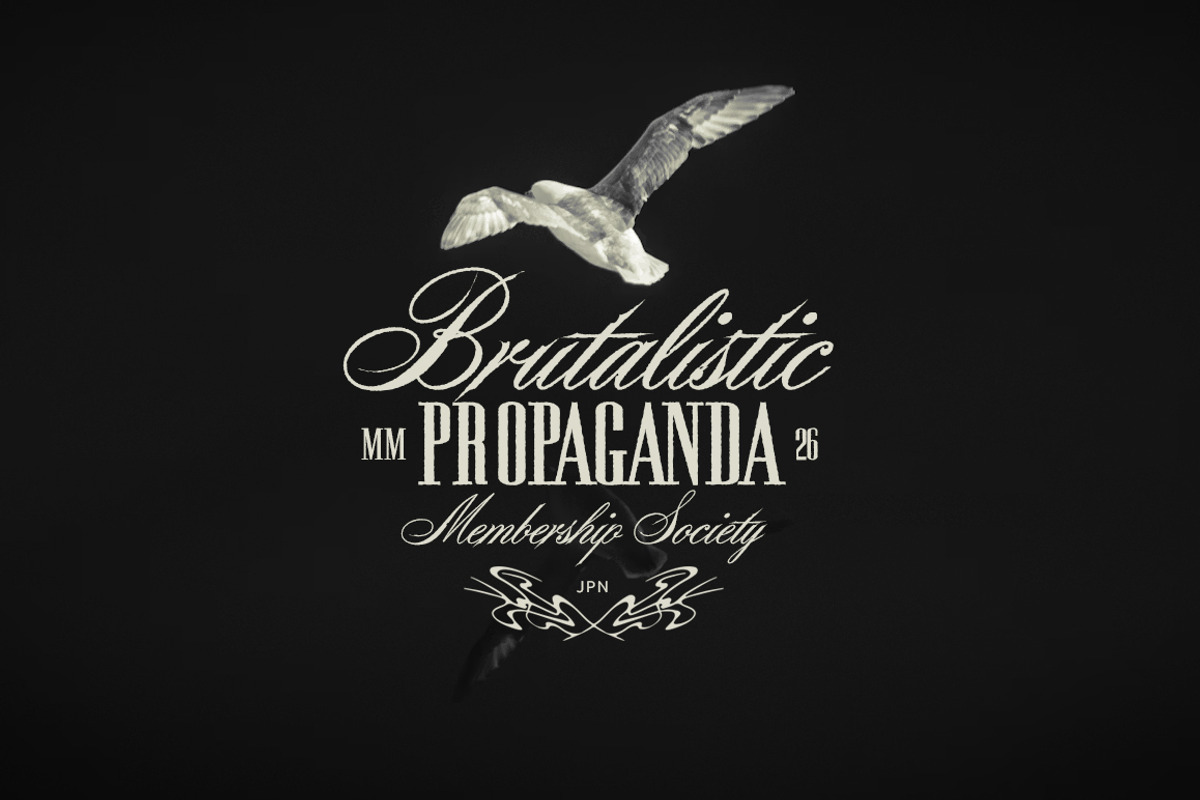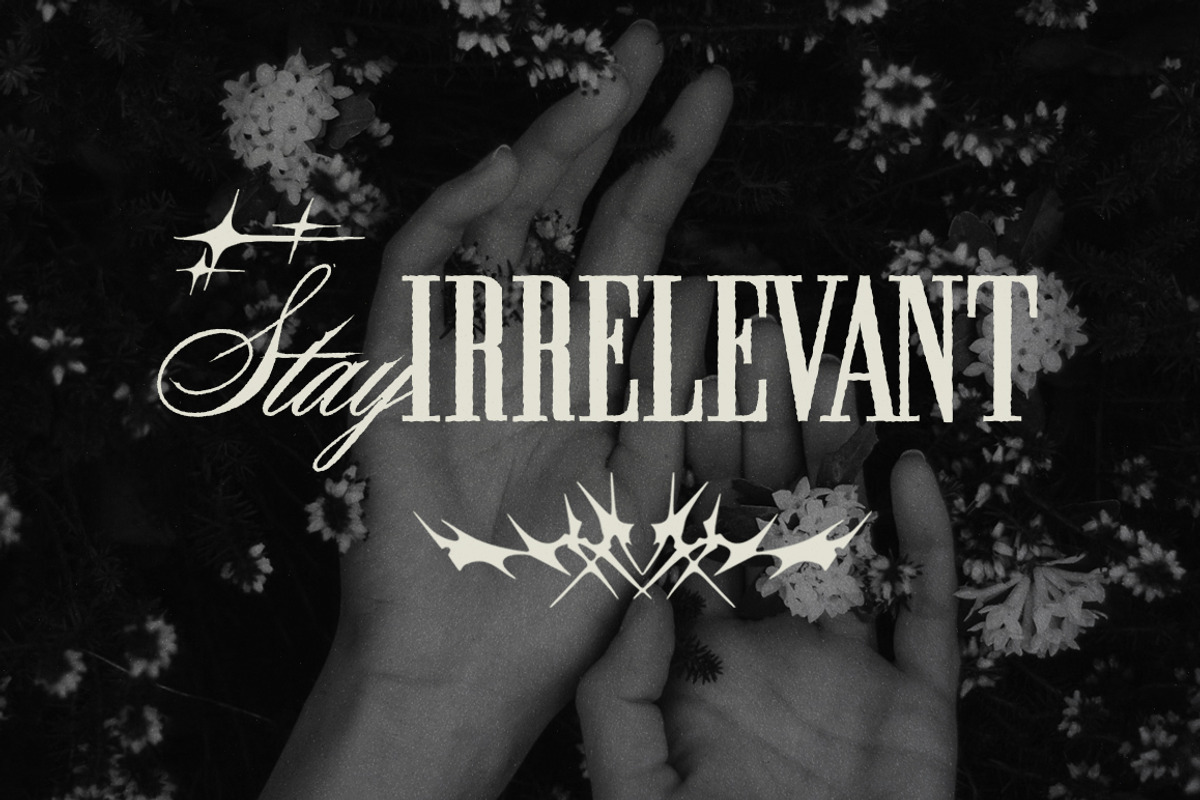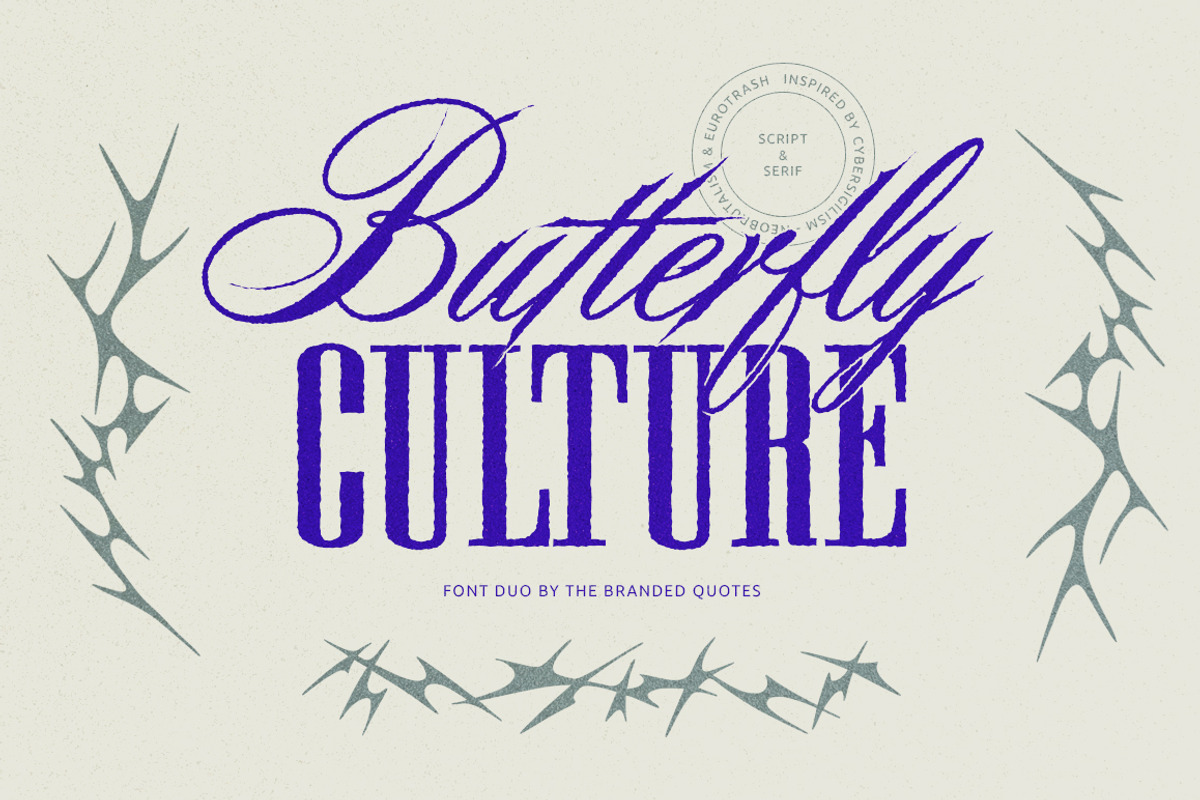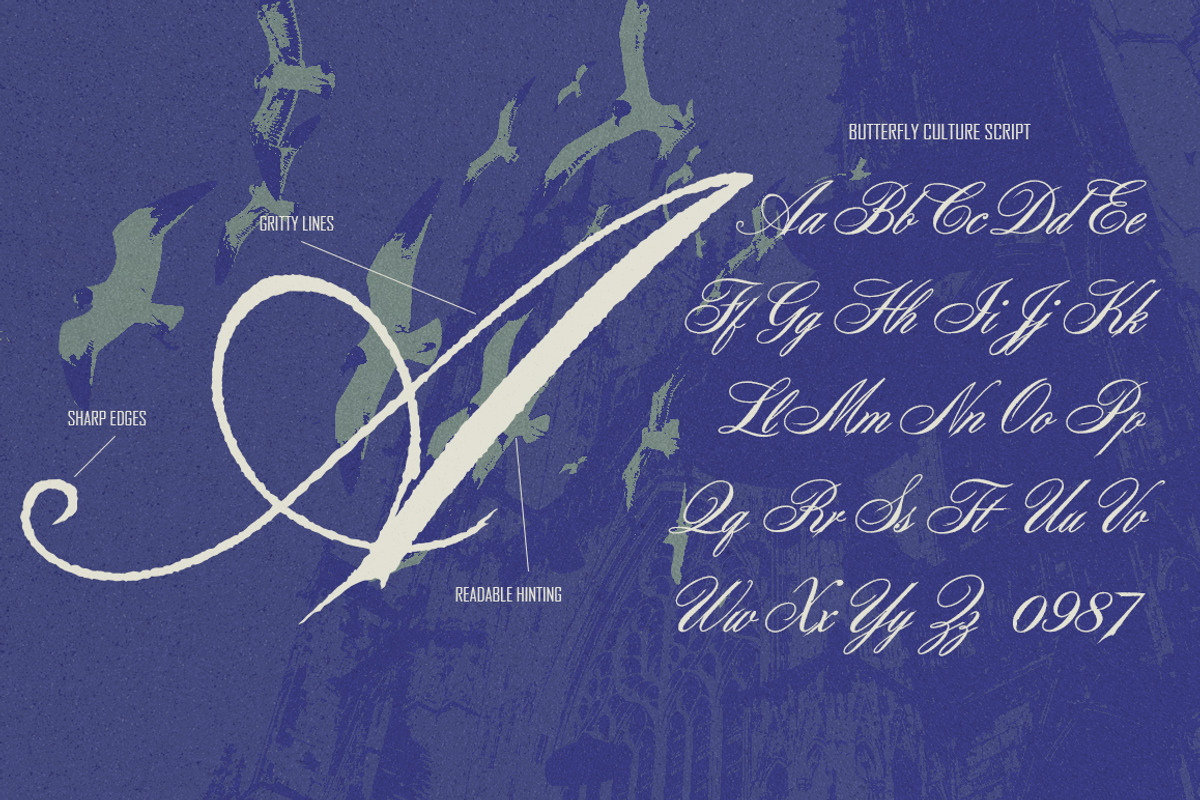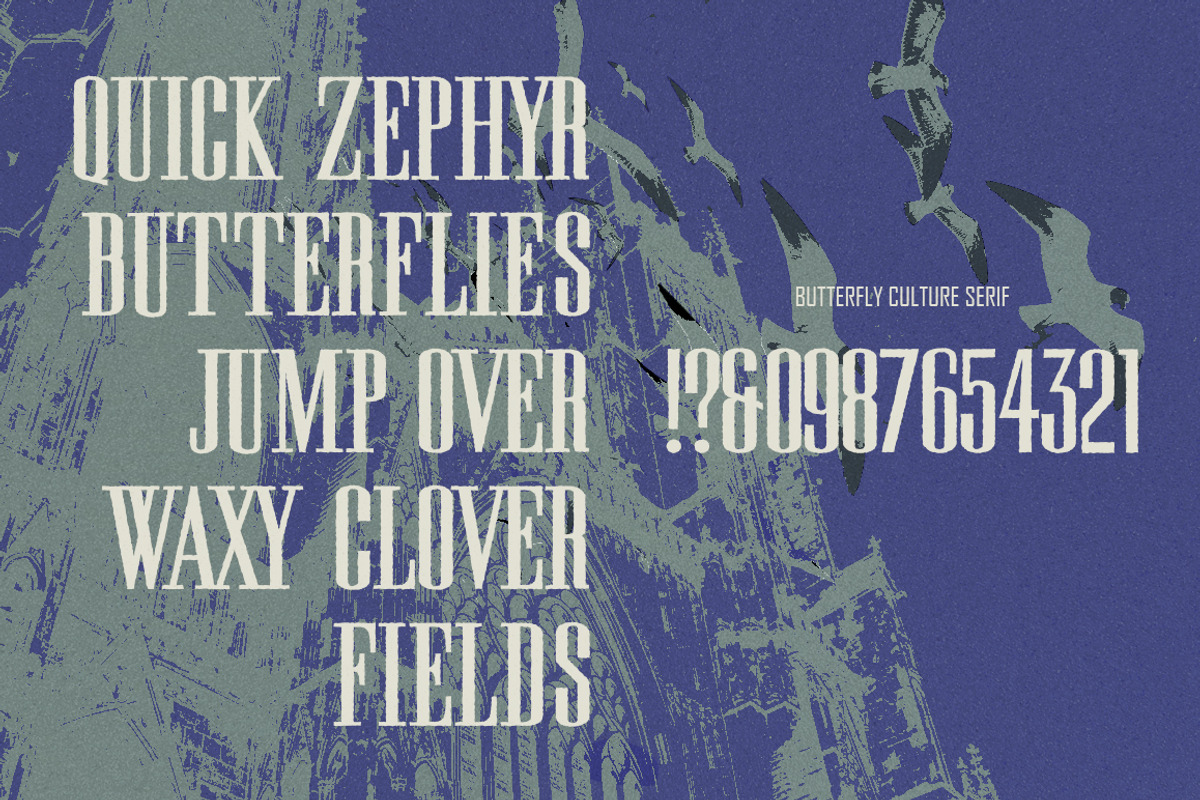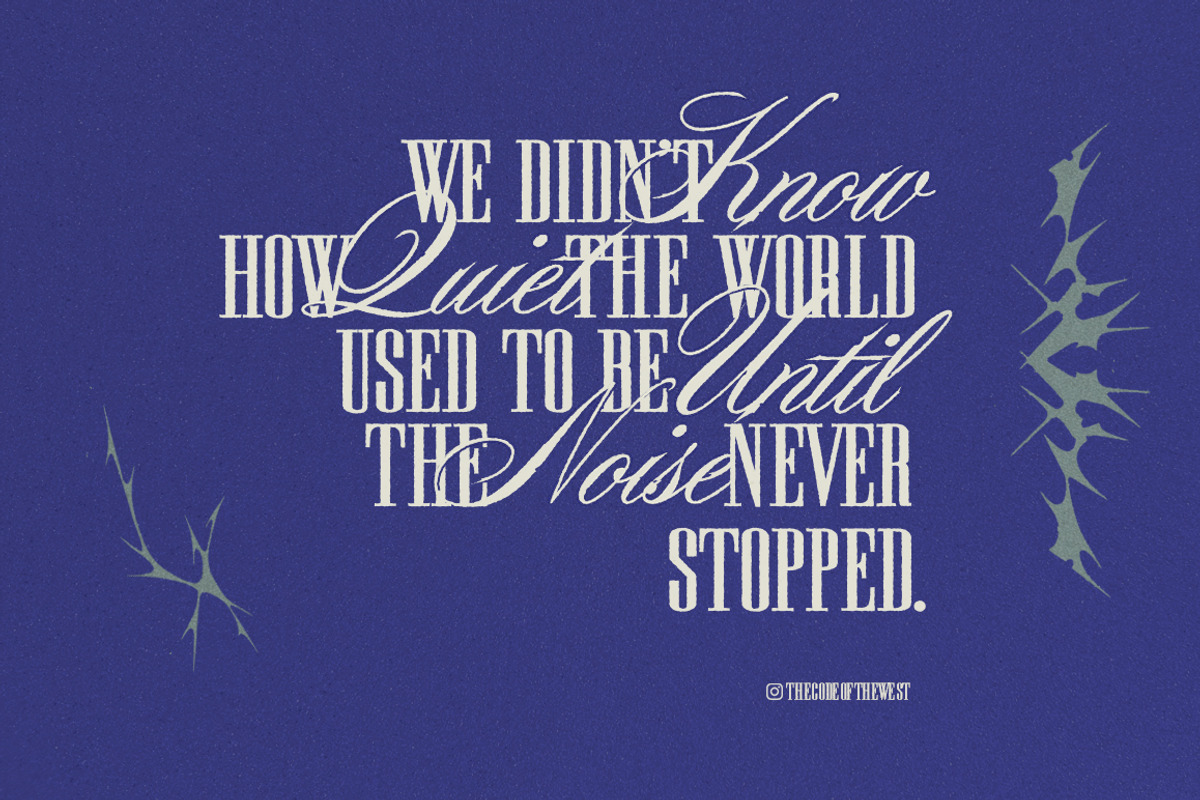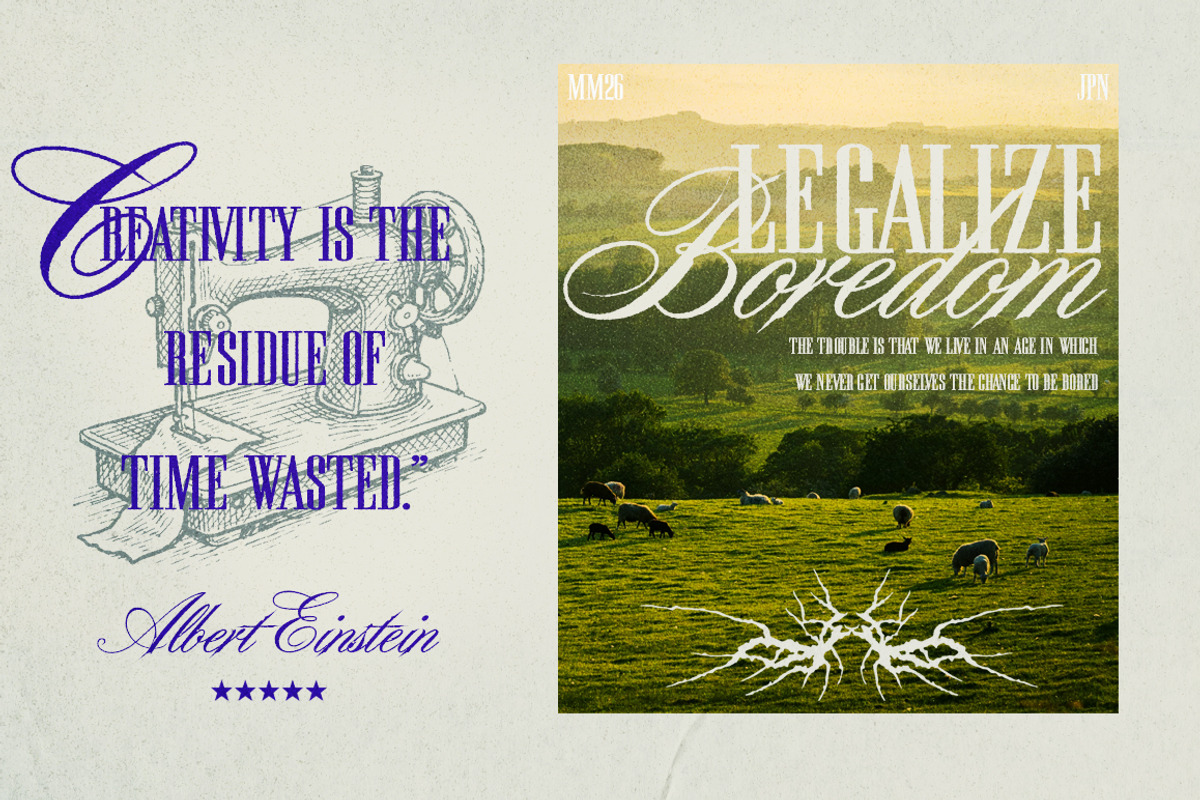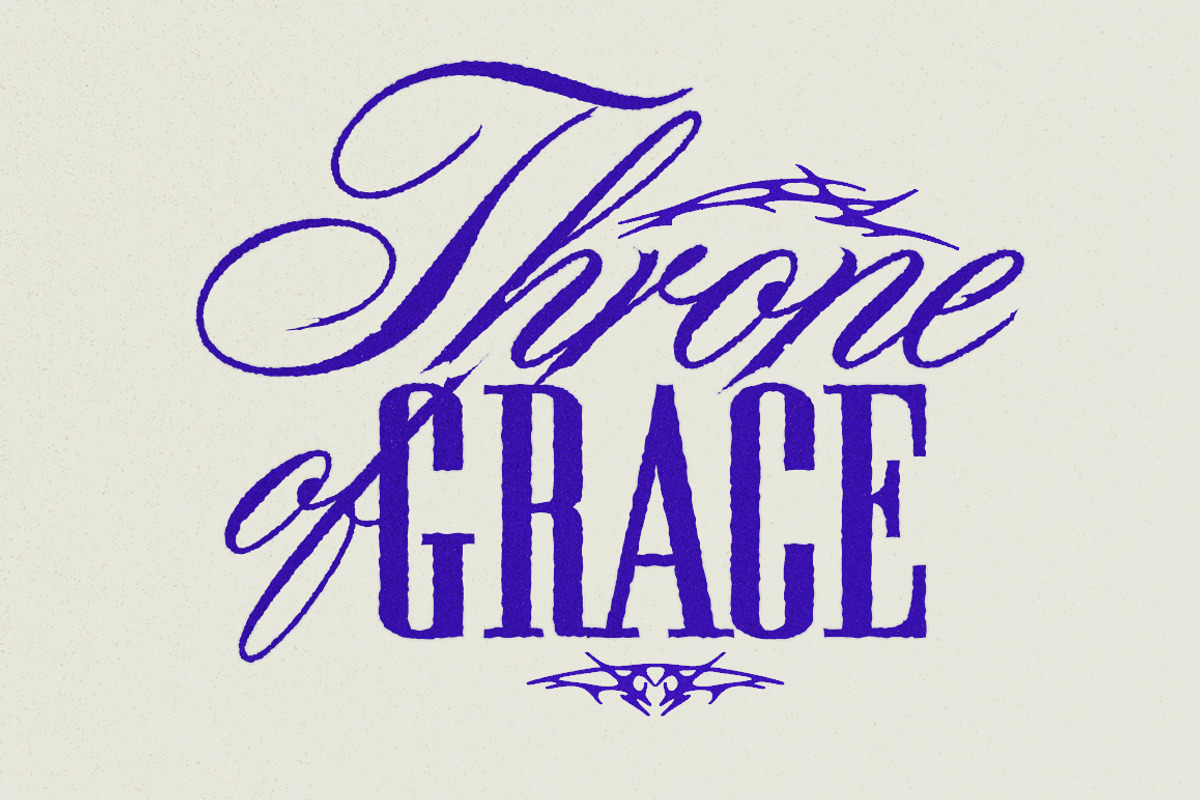
Butterfly Culture - Script & Serif
Butterfly Culture is a dual-font system inspired by Eurotrash design, Cybersigilism, and Neobrutalism, blending underground aesthetics with contemporary graphic rebellion. Each glyph is built with a gritty, raw line style that simulates tattoo stencil output, giving the typeface an analog, hand-cut attitude.
Butterfly Culture Script carries a classic linework structure reimagined through a modern subcultural lens. Its flowing forms balance elegance and distortion, making it feel both ceremonial and dangerous. Perfect for statements that demand emotion, identity, and presence.
Butterfly Culture Serif, however, is the all-capital serif counterpart of the collection. It translates the same raw, stencil-inspired texture into bold, commanding letterforms, built for impact and authority.
- Gritty Lines
- Sharp Edges
- Readability